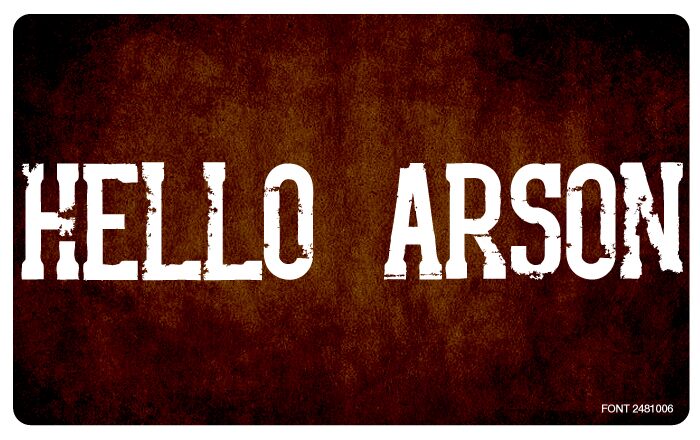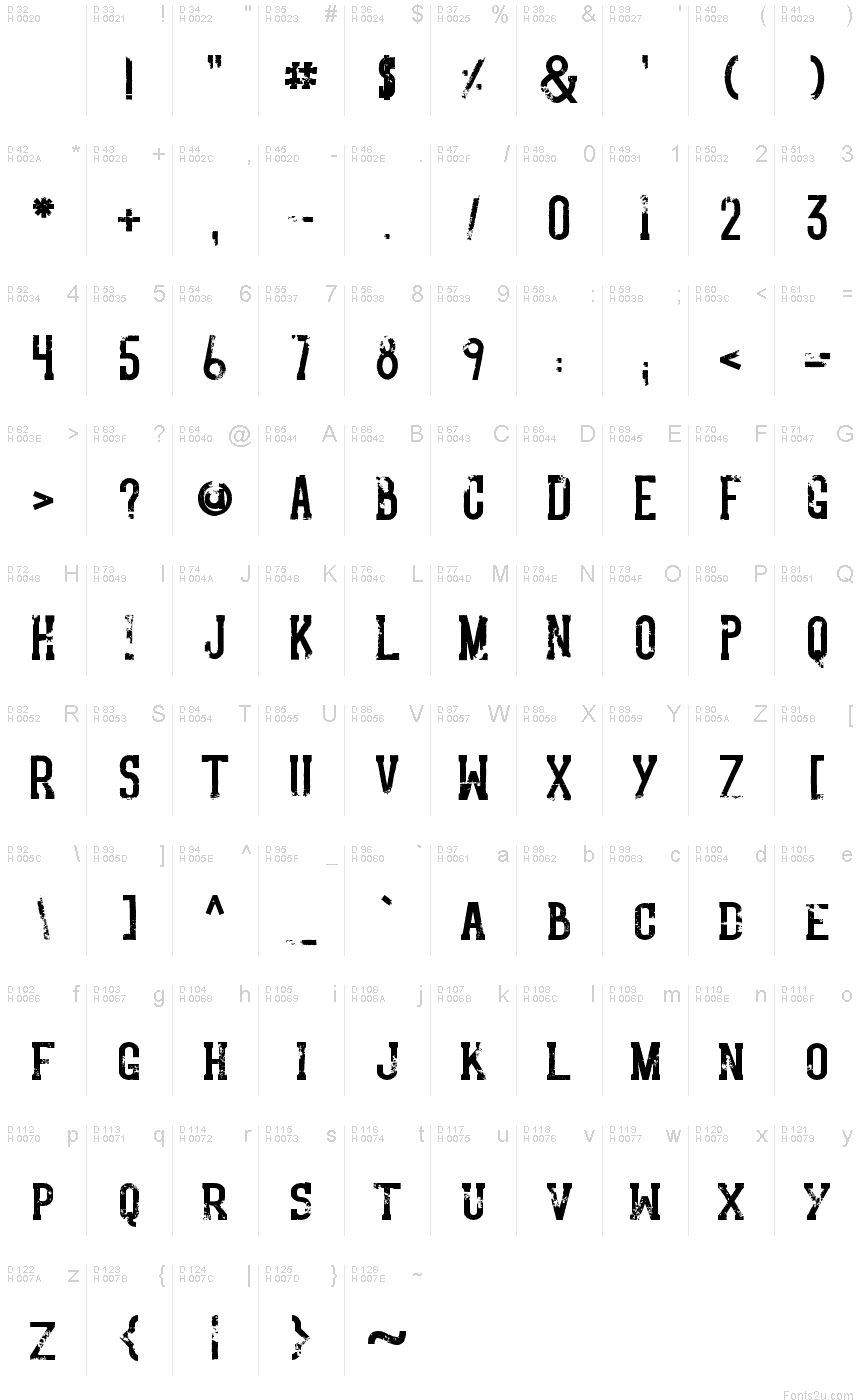
Hello Arson is a free eroded display font with tall, tightly packed capitals and blunt slab serifs. Deep scratches and irregular missing patches cut through the otherwise solid strokes, producing a harsh, weathered surface that feels printed under rough conditions.
Its damaged texture can echo cracked walls, scorched photographs, or distressed screen-print artwork in concert posters and album packaging. It also suits horror film graphics and rugged apparel. Across those uses, the narrow silhouette and torn ink effect turn lettering into part of the worn imagery rather than a clean typographic overlay.